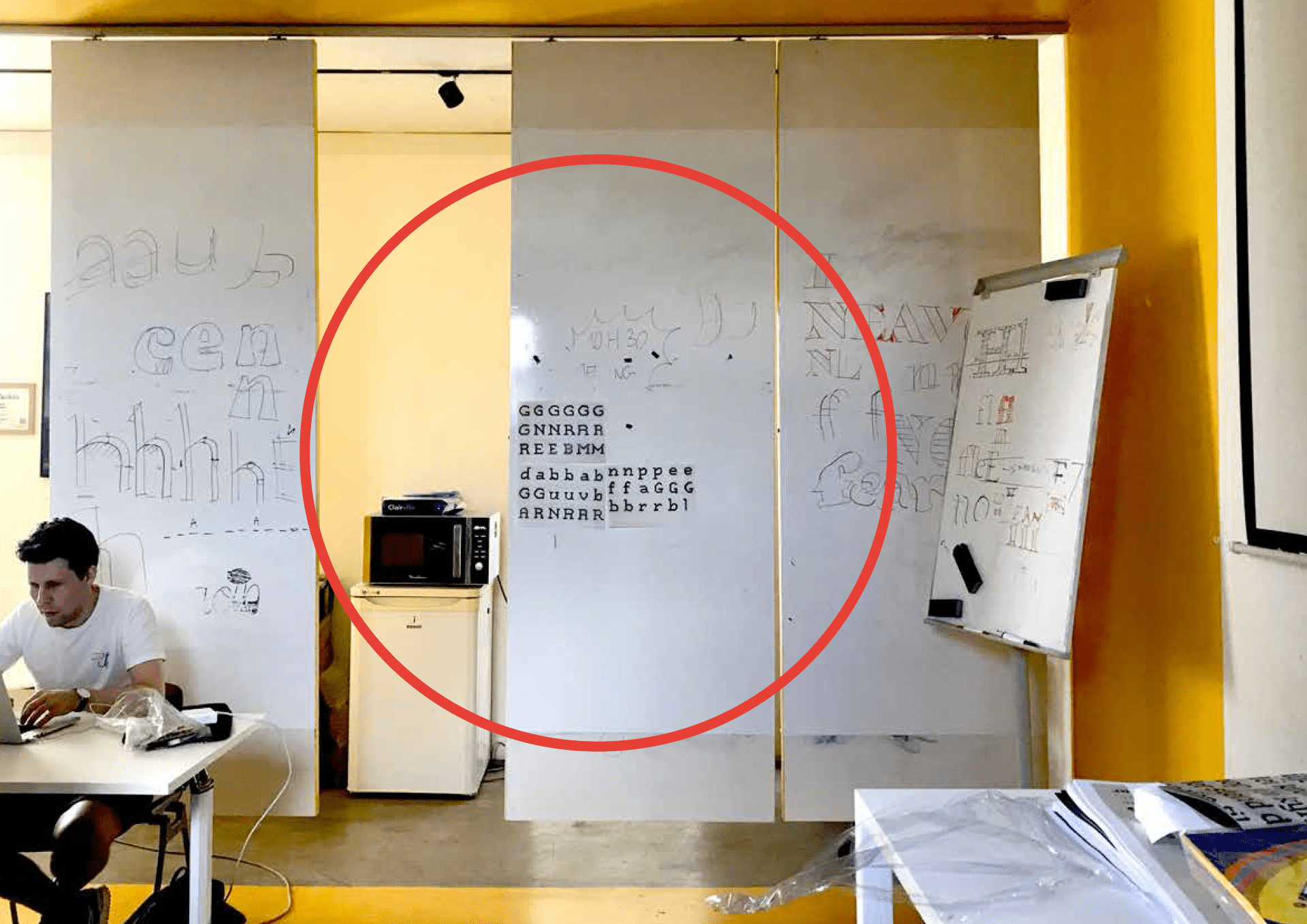
Companion
Companion is a friendly serif typeface designed to be used in small sizes, with the intention of setting information in
food labels. The front of packaging is usually heavily designed to attract potential clients. I wanted to give a little care and attention to the information that also takes up a lot of space on the label, set on the side.
There are also more people now interested in the ingredients that goes into the products they use or eat, and majority of these labels are set in sans serif. The thought of creating a different option and seeing an ingredient label set beautifully in a serif typeface led to designing Companion.
Designing in a 2.5cm x 2.5cm grid led to the characteristics of the letter forms. Wide proposition,low contrast and open counters all suitable for small text and optimised legibility. Drawing on a grid could lead to a mechanical feel to the shapes but the letters draw by hand and details like rounded curves gave it warm a personality.